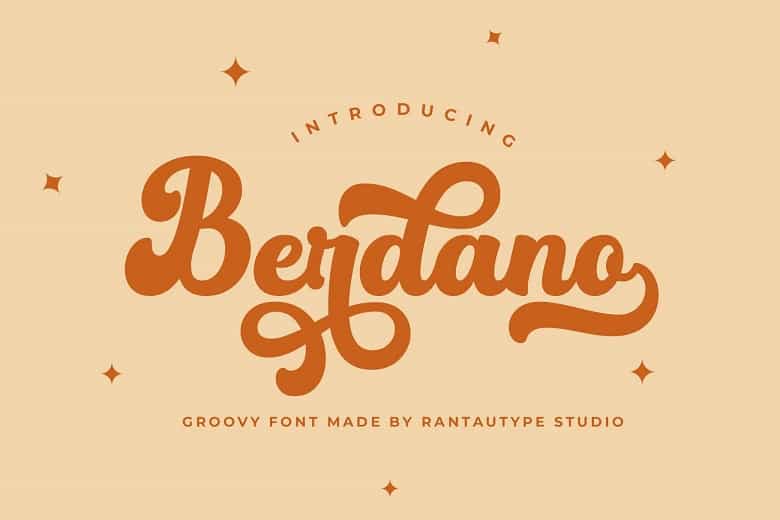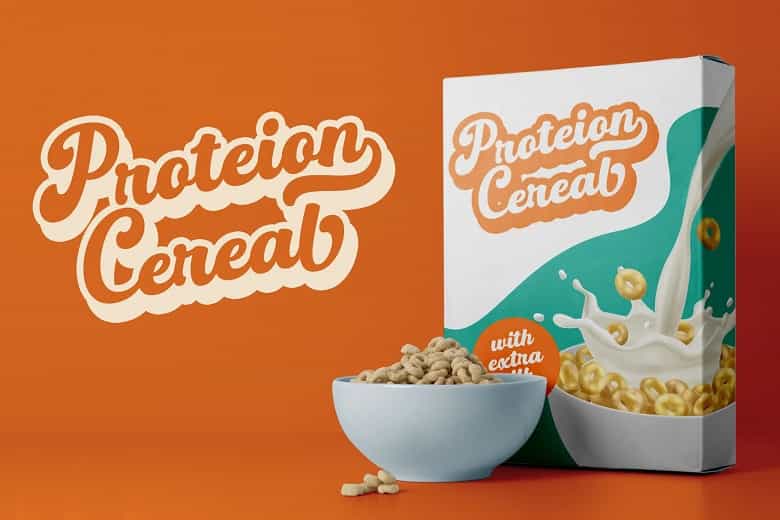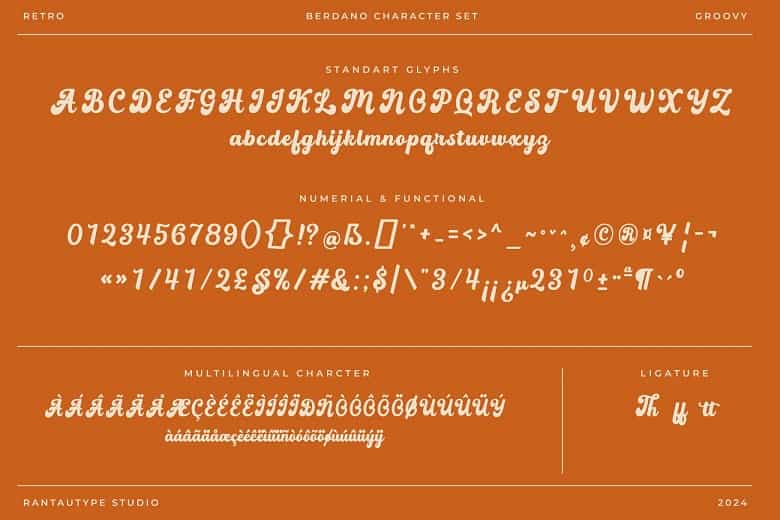
Berdano is a bold script font with retro and cheer up look and feel. Berdano is great for any creative purpose, lifestyle design which includes logos, titles, watermarks on photographs, covers, branding, display, and magazines, weddings, corporate companies, quotes, album arts, business cards, business proposals, and many other designs with a retro or groovy vibe.